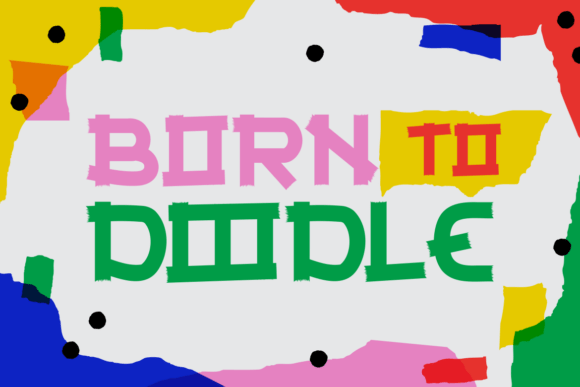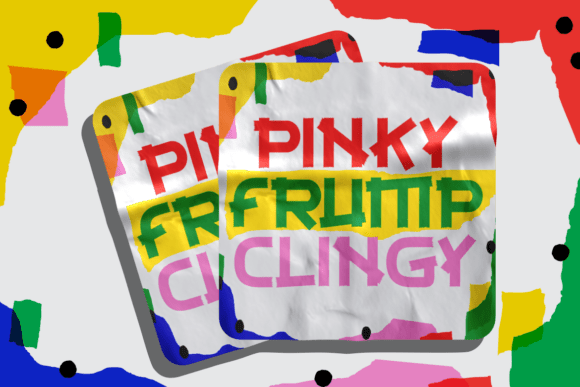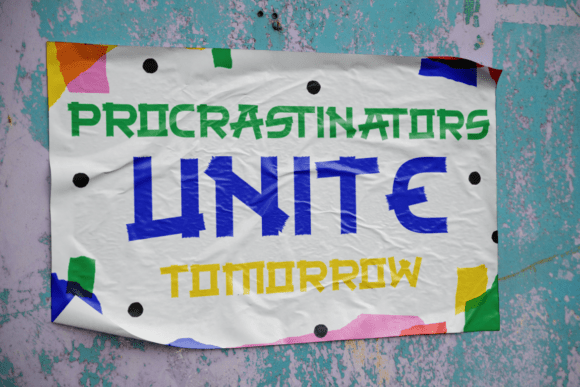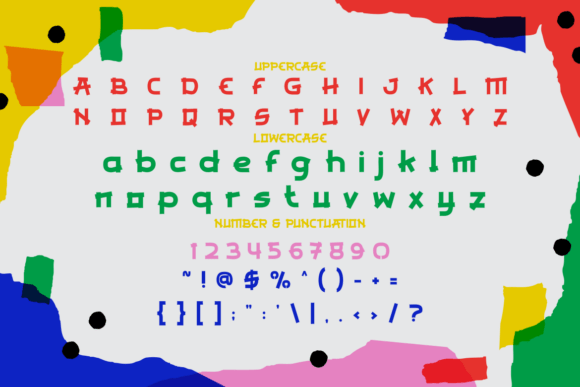
Unleashing Creative Chaos with Crest Strap Font
I still remember the design project that led me to discover Crest Strap Font. I was working on a vibrant poster for a local music festival, and I needed a font that could capture the energetic and playful spirit of the event. After hours of scrolling through font libraries, I stumbled upon Crest Strap – and it was love at first sight! 💫 The jagged strap-like slashes through the letterforms, the bold contrast, and the exaggerated forms all screamed “attention-grabber.” I knew right then that Crest Strap was the perfect fit for my project.
A Personal Review of Crest Strap Font
What I Love About Crest Strap ✨
- ✅ Vibrant Energy: Crest Strap injects a fresh, rebellious, and dynamic vibe into any design project.
- ✅ Hand-Cut Feel: The geometric slab foundation balanced with irregular slices gives each glyph a handcrafted street-style edge.
- ✅ Versatility: This font thrives in projects where fun meets visual power, from youth branding to artistic campaigns, merchandise, and bold editorial spreads.
- ✅ Attention-Grabber: Crest Strap’s comic-book attitude makes it perfect for posters, packaging, and anything that craves attention.
While Crest Strap is an amazing font, there are a few things to keep in mind:
- 🤔 Legibility at Small Sizes: Due to its bold and irregular design, Crest Strap may not be the best choice for body text or small font sizes.
- 🤔 Limited Formality: This font’s playful and energetic personality might not be suitable for formal or professional projects.
The Story Behind Crest Strap Font
Crest Strap Font was designed with the intention of capturing the raw energy of street art and the playfulness of comic books. Its creator aimed to craft a font that would be both fun and attention-grabbing, perfect for designs that need a bold, youthful vibe. With its unique blend of geometric slabs and irregular slices, Crest Strap embodies a rebellious spirit that’s hard to ignore.
| What makes Crest Strap Font unique? | Crest Strap’s jagged strap-like slashes through the letterforms, bold contrast, and exaggerated forms give it a distinctive, hand-cut energy. |
| Is Crest Strap suitable for body text? | Due to its bold design, Crest Strap is best used for headlines or attention-grabbing text rather than body text. |
| Does Crest Strap support OpenType features? | Yes, Crest Strap supports OpenType features, including stylistic alternates and glyphs, allowing for more creative control. |